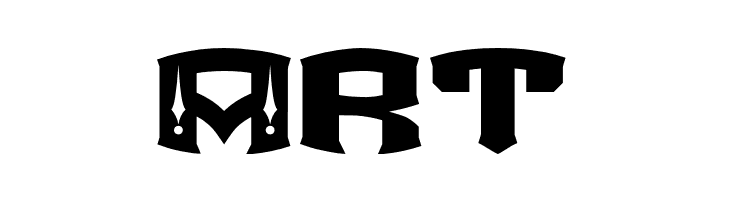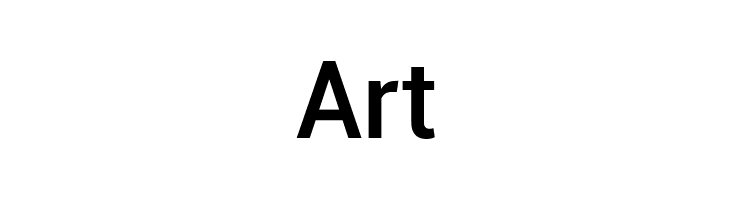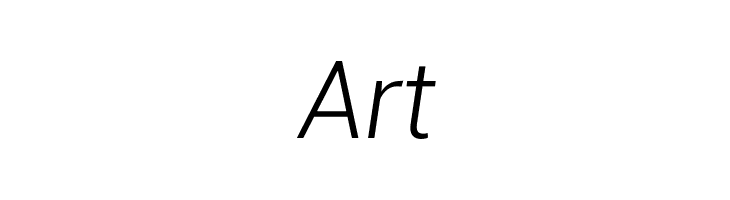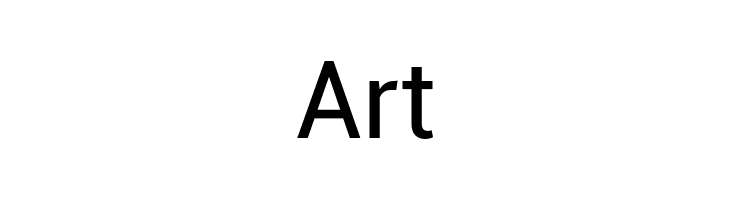
A modern, light sans-serif font with clean lines and excellent readability.
A sleek, modern, light italic font with low contrast and normal spacing.
A modern, geometric sans-serif font with excellent readability.
A modern, italicized sans-serif font with medium weight and normal spacing.
A modern, geometric sans-serif font with excellent readability.
A thin, modern sans-serif font with excellent readability and a sleek appearance.
A sleek, modern, thin italic font with excellent legibility and a minimalist aesthetic.
A bold, fluid font with a rock-inspired, dynamic style.
A bold, futuristic font with geometric shapes and cut-out elements.
A bold, geometric font with sharp angles and high contrast, ideal for decorative use.